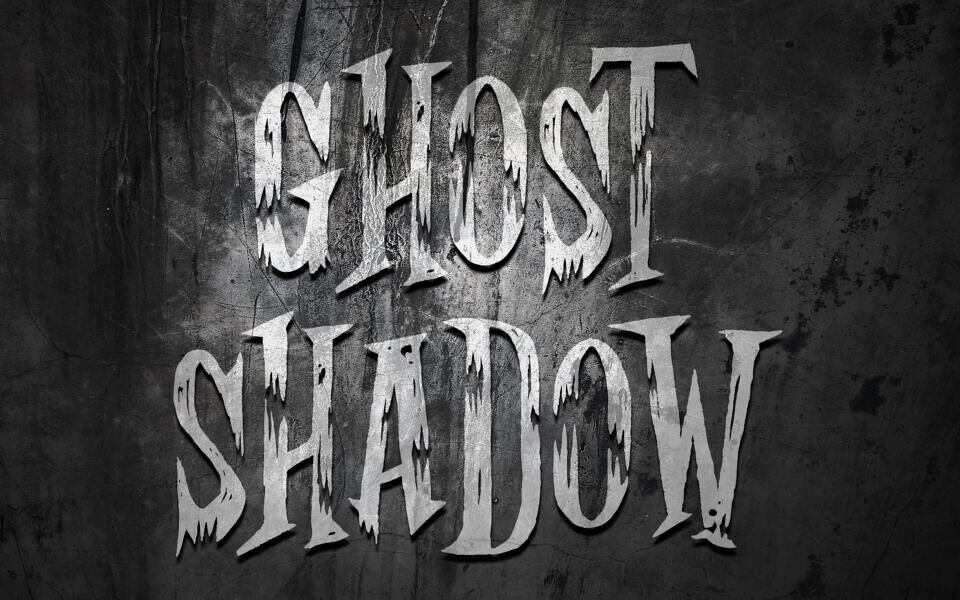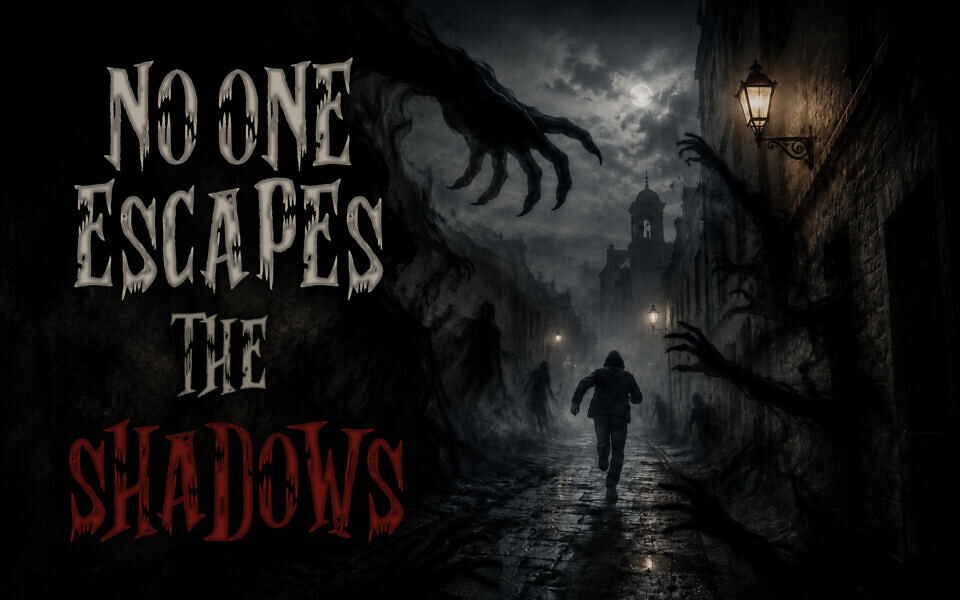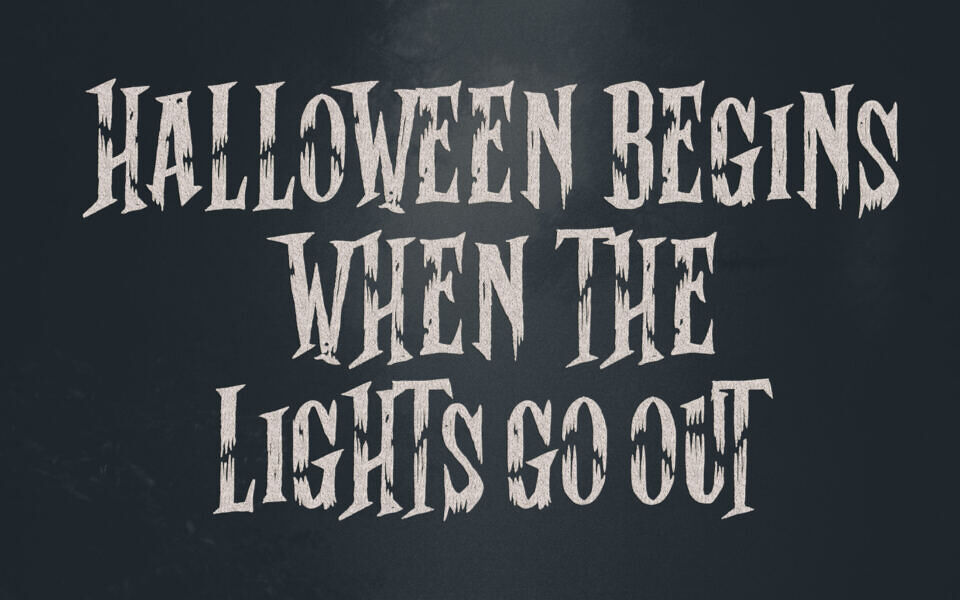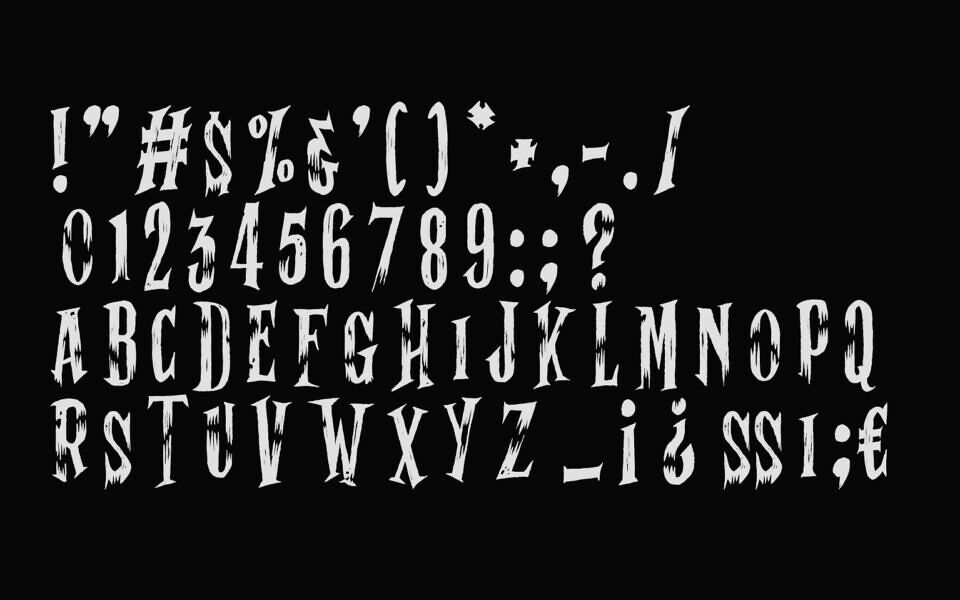
Ghost Shadow is a dramatic horror-style display font with jagged edges, distressed textures, and an eerie, hand-drawn appearance. Its bold, irregular letterforms create a supernatural atmosphere, making it ideal for Halloween graphics, movie titles, posters, book covers, gaming artwork, and spooky branding.